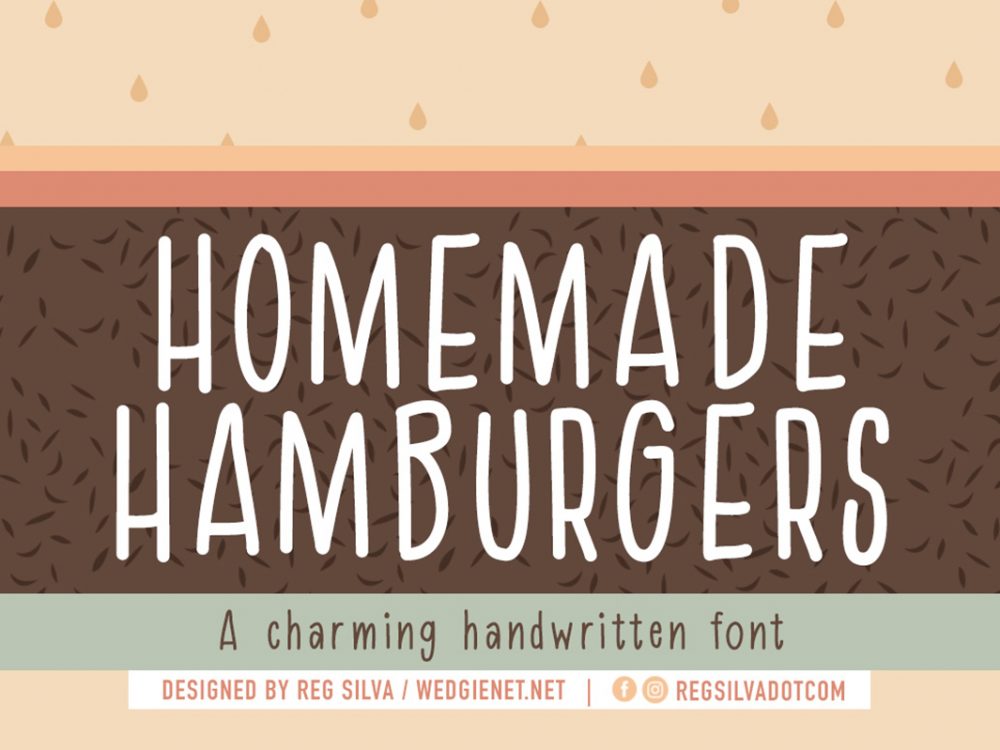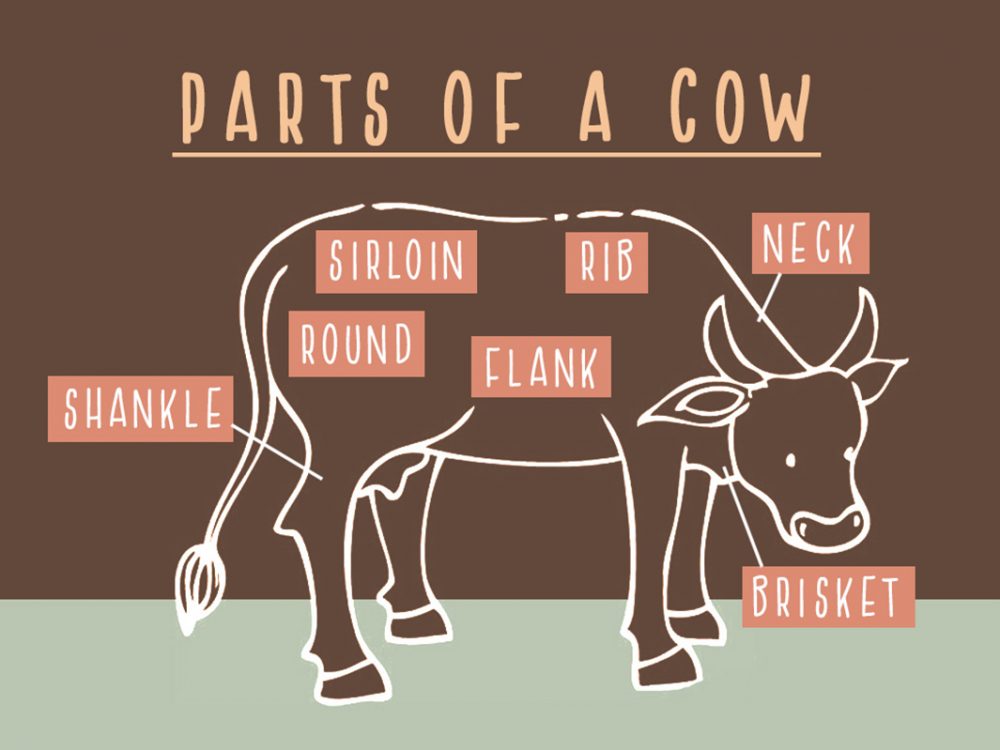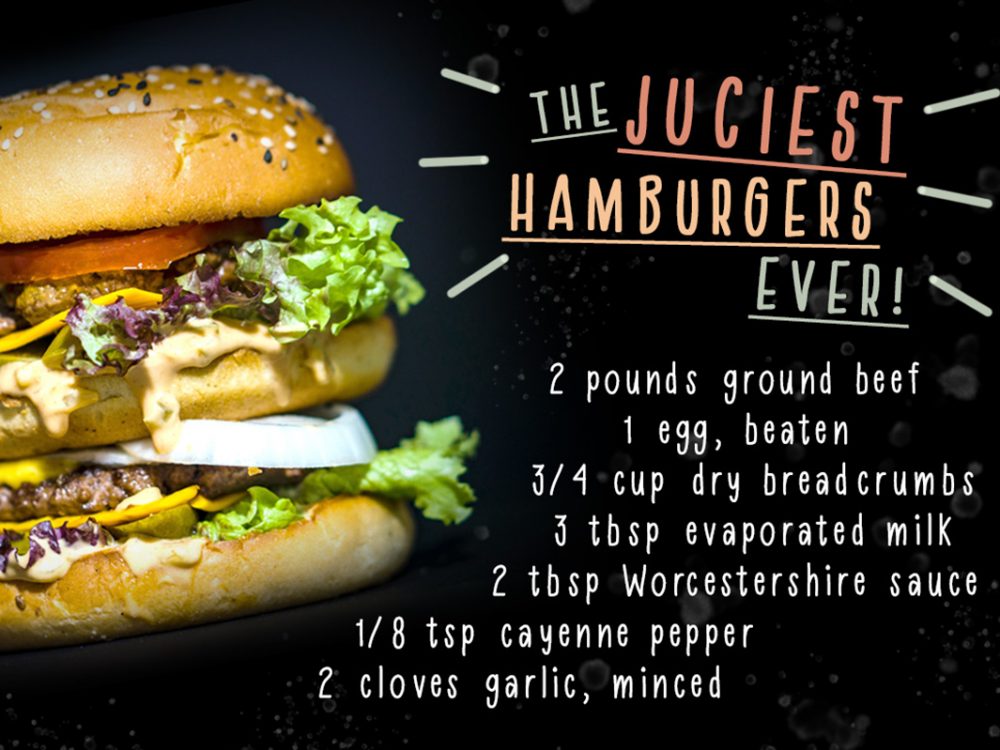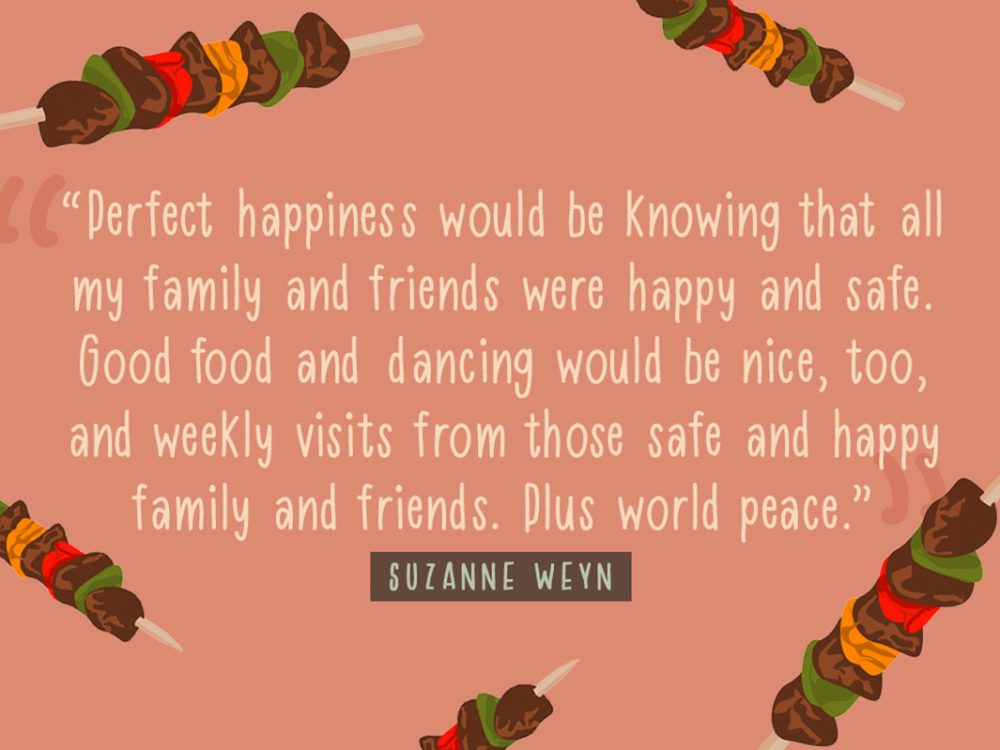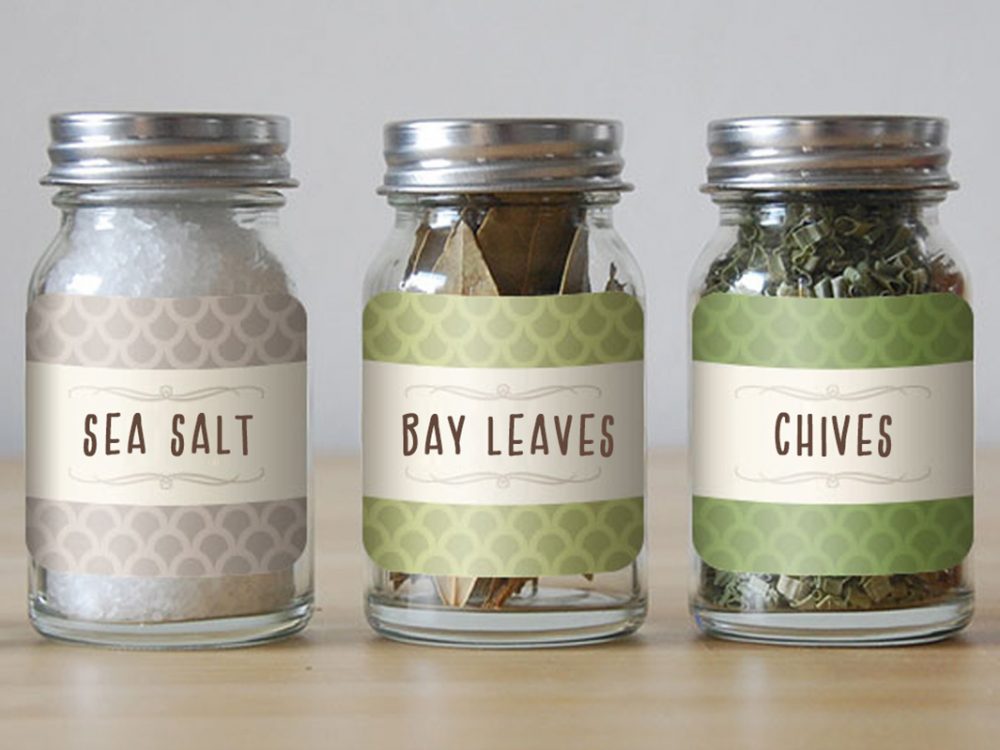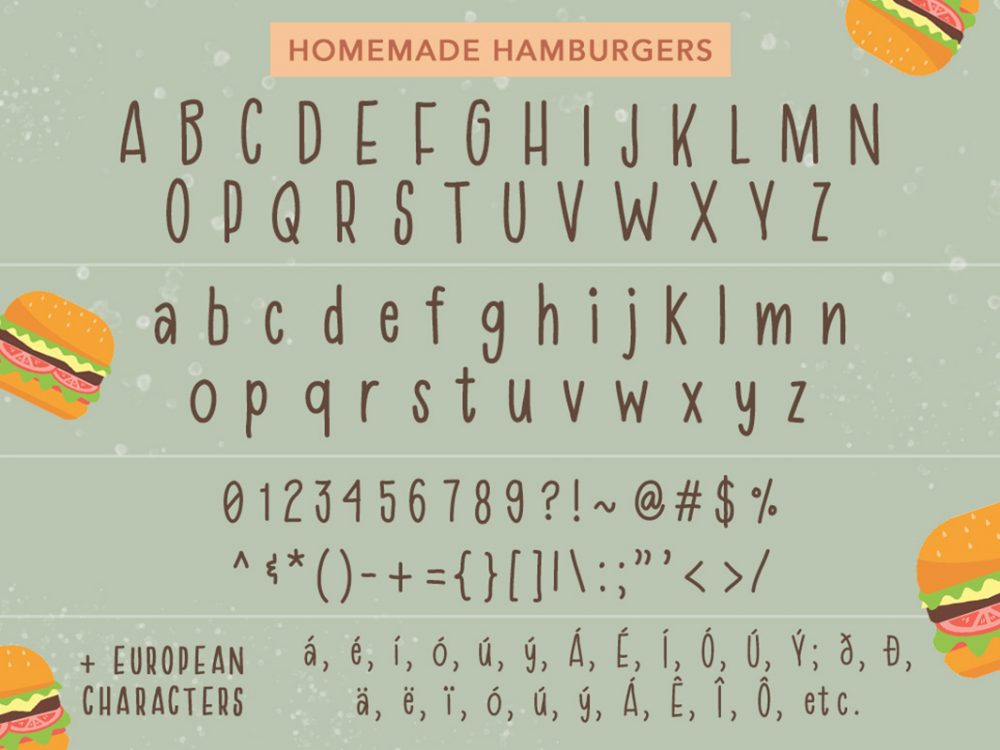
Homemade Hamburger Font
Homemade Hamburger Font is an interesting fancy font that mimics a childish writing style. This backdrop will work very well for many design projects such as fun posters, cards, invitations, flyers, prints, and more. If you wish to access more features and use them for commercial work please buy the full version.